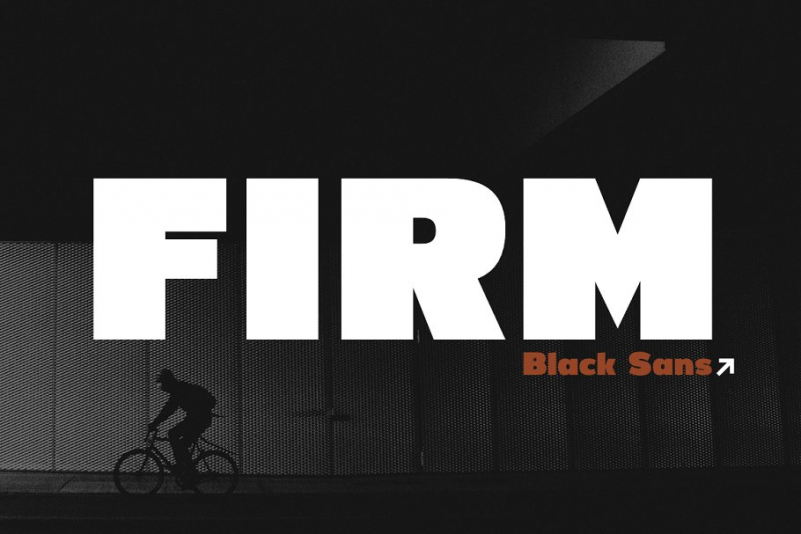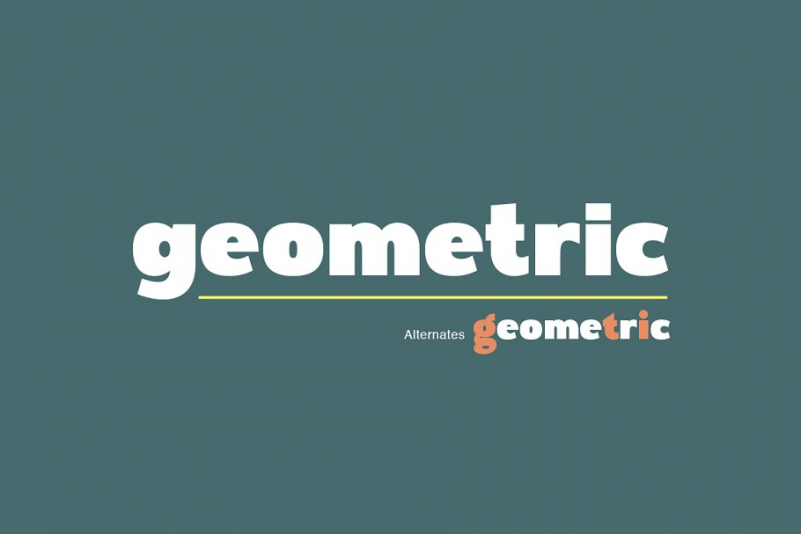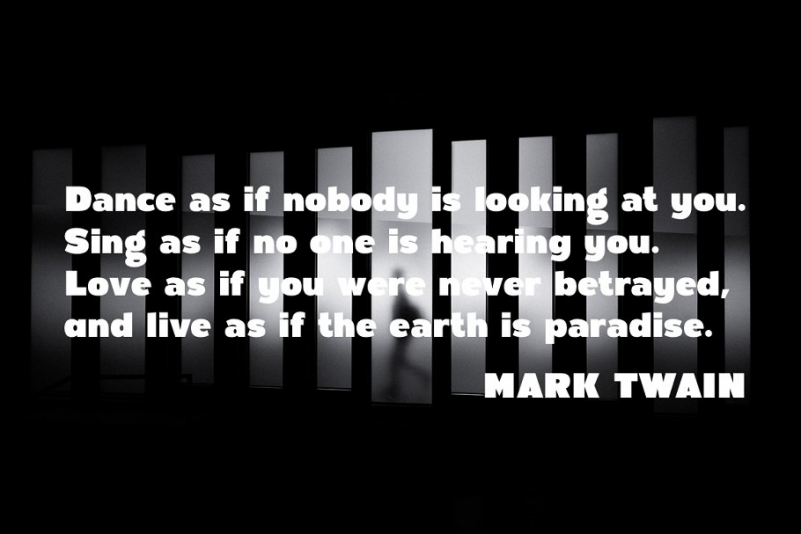
Firm Font
Perfectly attracts attention due to its shapes. with it, you can highlight important information in your text, and it is also perfect for creating a logo.This font represents alternates lowercase, ampersand and ligatures, math symbols, arrows, fractions, and multilingual support.